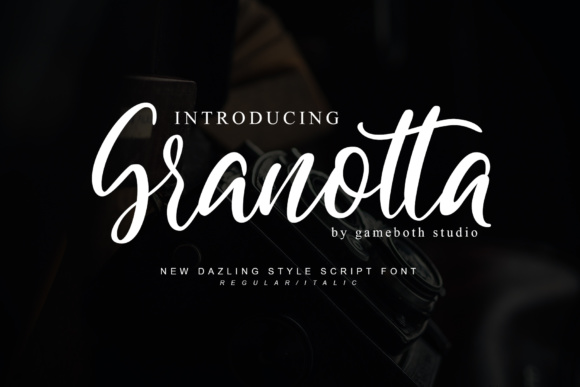
Prepare to be mesmerized by the captivating Granotta Script Font, a masterpiece that will unleash your creativity and elevate your designs to new heights. This exquisite script, meticulously crafted by gameboth.studio, embodies the essence of elegance and charm, inviting you to explore a world of boundless imagination.
Immerse yourself in the Granotta family, where each style—regular and italic—possesses a distinct personality, allowing you to express your unique vision. Whether you seek to pen heartfelt letters, design breathtaking invitations, or create eye-catching marketing materials, Granotta will effortlessly elevate your words, transforming them into works of art.
Picture this: the Granotta Script Font gracing your holiday cards, carrying heartfelt messages of joy, love, and gratitude. Imagine the smiles it will evoke, the memories it will create. With Granotta, your words will dance across the page with an unparalleled grace, conveying the warmth of your sentiments in a way that words alone cannot capture.
So, embark on this creative adventure with the Granotta Script Font. Let its enchanting curves and captivating charm inspire you as you craft designs that captivate and connect. Unleash your imagination, embrace the magic of Granotta, and watch as your words transform into masterpieces.